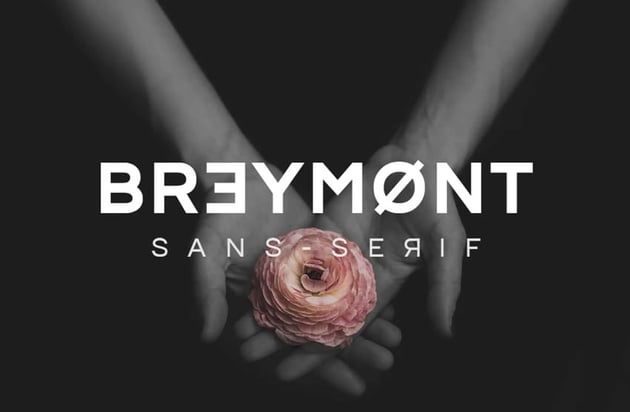
So, What Is the Best Font for a Flyer?
Like many design projects, the best font for flyers is going to vary depending upon your focus. So, for example, the best fonts for club flyers are going to be different from those for a pet show or a business convention. Make sure to consider your target audience.
However, there are some general catch-alls that you can follow for most flyer designs.
- Your flyer needs to command attention.
- Key information needs to be large and eye-catching.
- The content should be clear and easy to understand.
- Your flyer should appeal to and excite your target audience.
For example, check out this flyer design for a music club event. The aesthetic is modern, colorful, and energetic: all things that work well for this venue and business. This wouldn't work as well for a doctor's office or a bake sale. Note the stylish, geometric font.
So, how do we pick the best fonts for flyer design? It's all about keying into that aesthetic. For example, check out this flyer design for a fitness brand. It's pretty different from the club flyer, but note that the fonts have two major things in common:
- The header or title is in larger, bolder type.
- The supplemental is smaller.
This is a simple and effective way to use typography to establish hierarchy. If, for example, all of the text was the same size, nothing would stand out from each other.
This idea applies across aesthetics too. For example, here's a flyer for a dog-walking business. Notice that the larger type is big, bouncy, and playful. It has a fun look that works well for this target audience. On the other hand, if we used this look for the club flyer, it might risk looking juvenile.
But notice how much the choice of font makes a difference here. The best fonts for advertising flyers always depend on the target aesthetic. However, most modern flyer design follows the same rule: your title should be large, eye-catching type.
Flyer Fonts: What Are Display Fonts?
When searching for the best font for a flyer heading, you're likely going to stumble upon display fonts. It's not always exclusively about how big should a font be on flyers. Sometimes, you'll want something aesthetically eye-catching too. The goal is to create interest.
Let's take a look at an example of a font that would work really for modern flyer design. It's a thick, chunky sans serif font, and it looks great at larger sizes. It's easy to imagine this as a title or headline, right? The designer of this font has called it a display font—because it was designed for larger display.
Let's look at the opposite. Note this simple layout, below. It's a good example of basic hierarchy. What parts of the composition stand out to you? The title is larger, bolder, and red. The body copy is more subtle, and it reads well at smaller sizes.
Check out this concept applied to a creative flyer design, below. In this case, we have a large font for the title, again. However, this time we have decorative display type. This font has been specifically designed for large, eye-catching text. It wouldn't work well at smaller sizes, because of those decorative elements. This is a great example, if you're looking for the best fonts for club flyers. It's stylish, energetic, and fun.
However, the smaller text here is subtler, without decorative extras. These fonts have been designed for readability at small sizes.
You can get really creative with display fonts, too. For example, check out this eye-catching font. If you're looking for artsy, whimsical flyer fonts, this one could be a great fit. Imagine it for an arts or crafts show, or for an indie music venue.
Best Fonts for Flyer Design on Envato Elements
Here's a look at some of the awesome fonts available for download on Envato Elements right now. Remember, all of these fonts are included for one low price. Consider downloading your favorites, or enjoy the design inspiration.
1. Sea Horse Typeface
Or maybe a vintage look and feel better suits your flyer design. Why not try an ornate display font, like this one?
2. Breymont Font
A clean sans serif font can be a perfect choice for a modern aesthetic. Check out this stylish font. It would work so well at larger sizes.
3. Pathways | 4 Styles + Bonuses
Here's a stylish script font with really interesting texture. It comes in three different styles, and it's best suited to titles, headlines, and other points of interest.